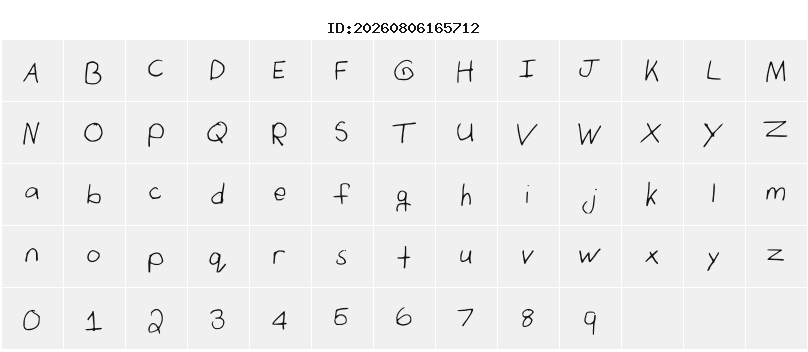
OliviaPalmieri Preview
• Font Name: OliviaPalmieri
About OliviaPalmieri.ttf
OliviaPalmieri.ttf is a modern, elegant sans-serif font designed for ultimate readability and visual harmony. Perfect for branding, headlines, web design, and print materials.